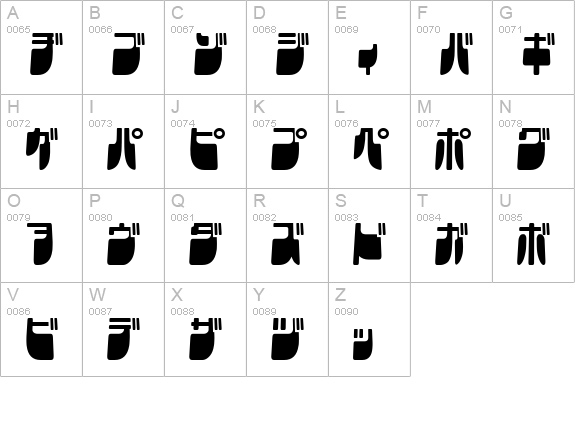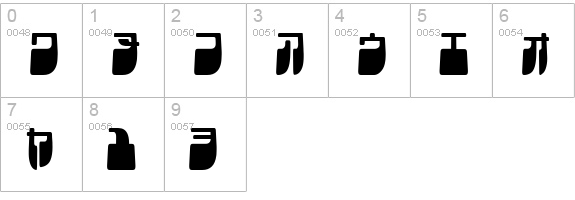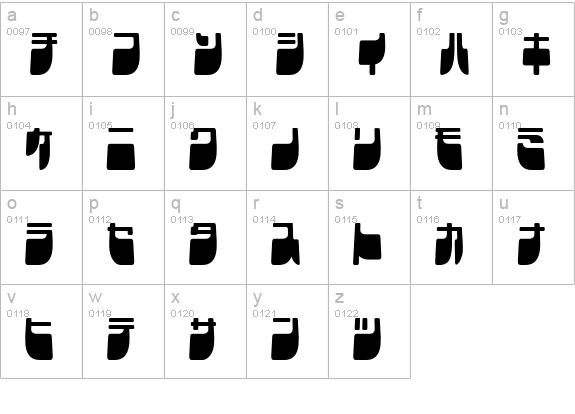
Frigate Katakana - Cond is a distinctive, condensed-width variant in the Frigate typeface family \xE2\x80\x94 well suited to design and typography projects.
Frigate Katakana - Cond font is a sleek and modern typeface that exudes elegance and sophistication. With its sharp lines and condensed design, this font is perfect for adding a touch of contemporary flair to any project. Whether you're designing a logo, creating a website, or crafting a poster, Frigate Katakana - Cond font will make your text stand out with its unique style. Best of all, Frigate Katakana - Cond font is available for free download at FontsMarket.com. This means you can easily access this striking font and use it in your designs without any cost. Don't miss out on the opportunity to enhance your projects with the bold and eye-catching Frigate Katakana - Cond font - download it for free today!